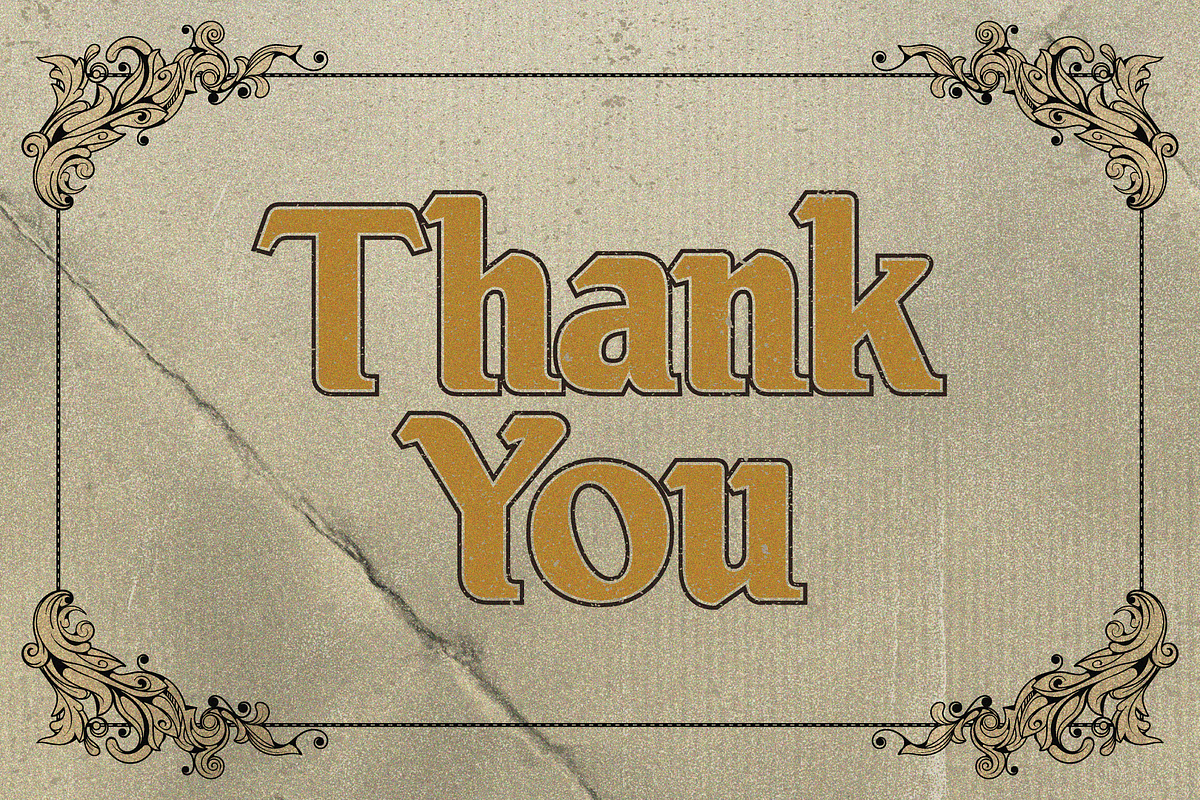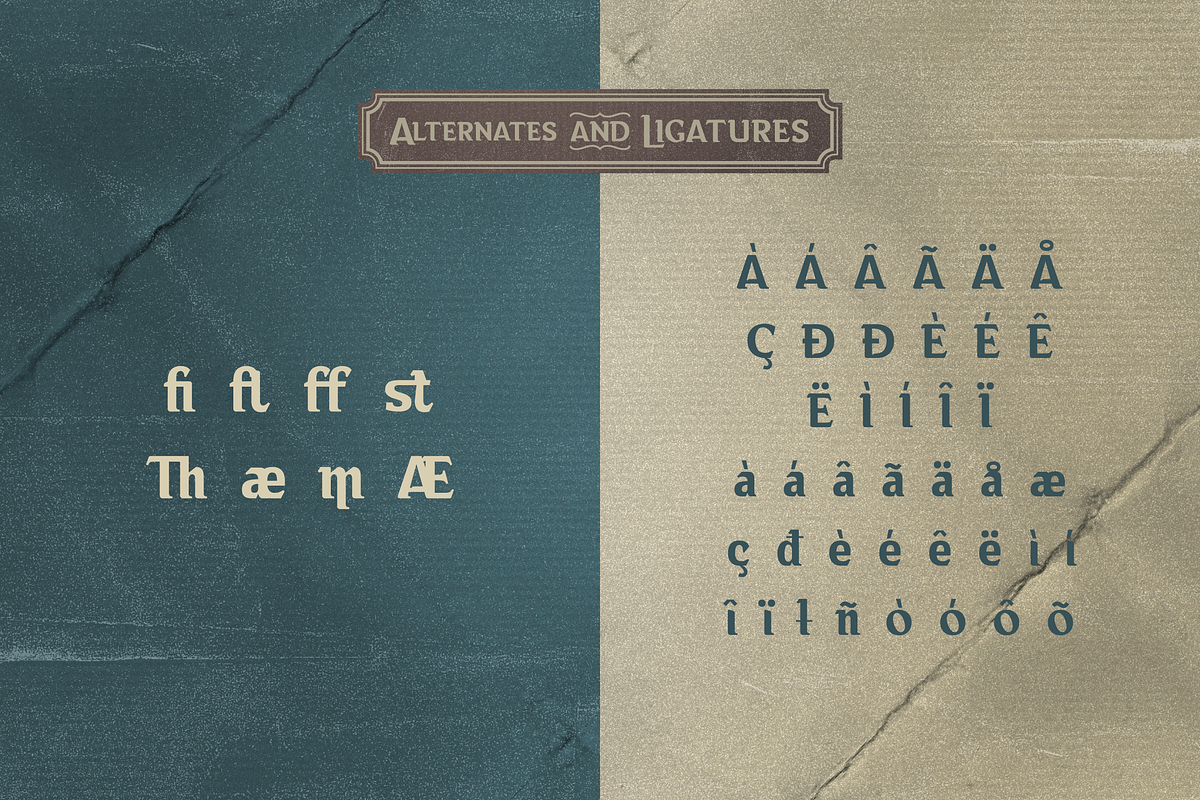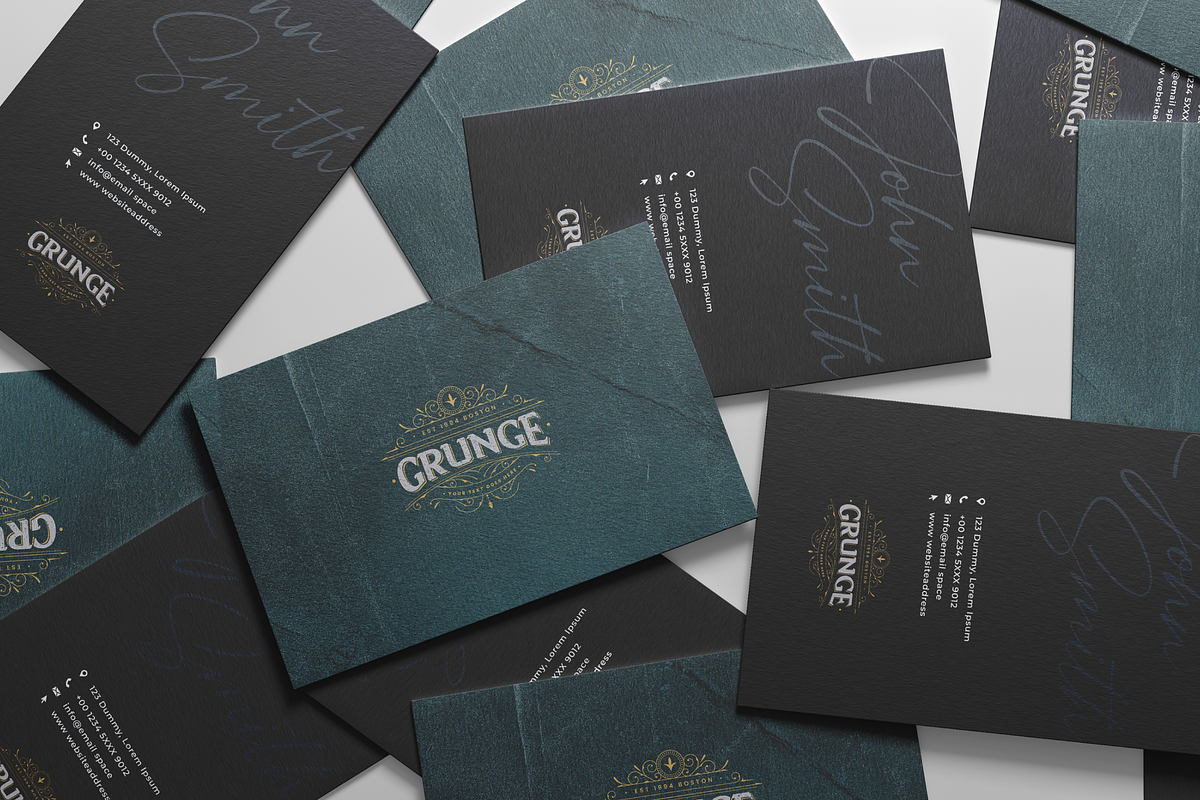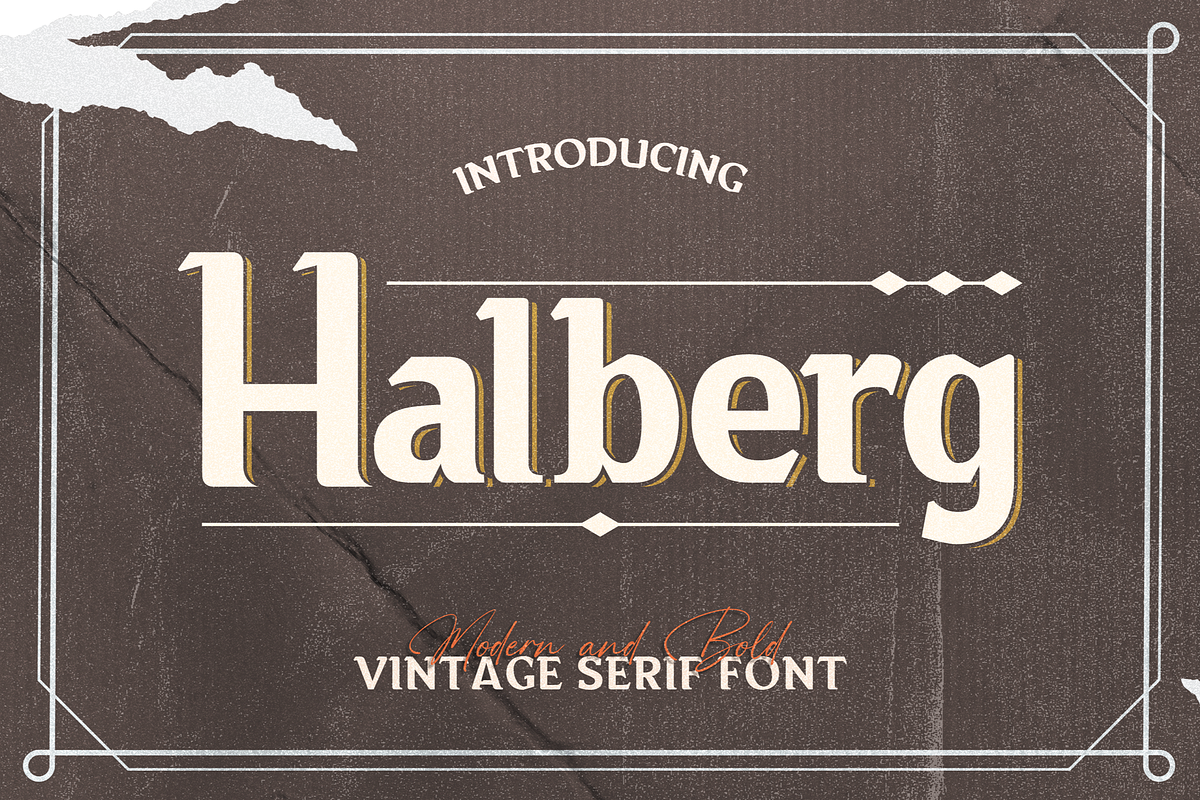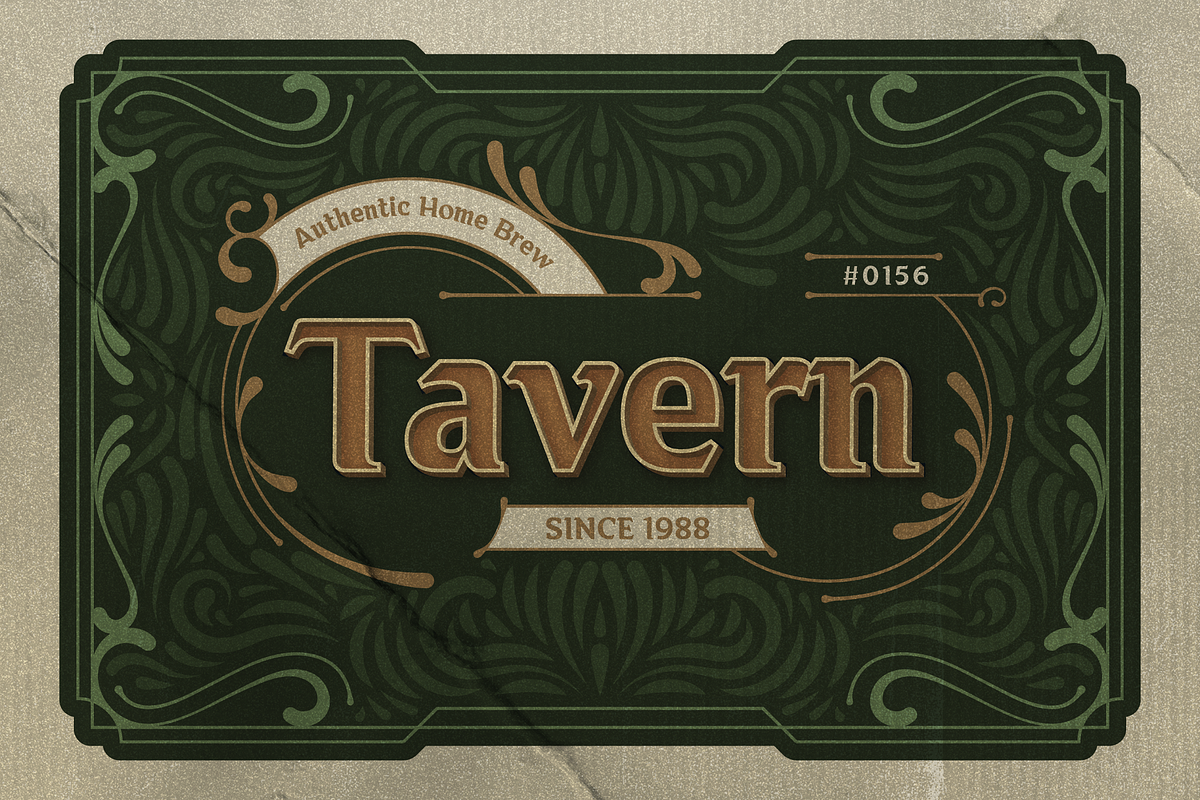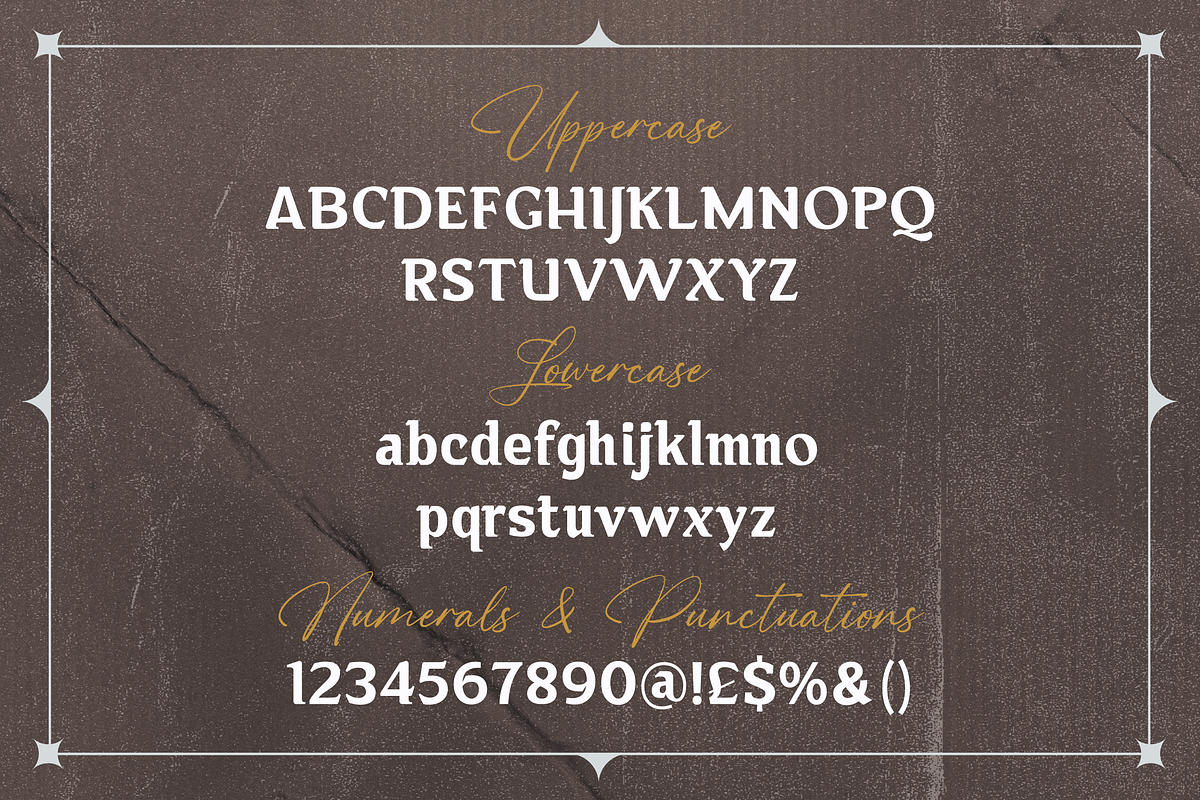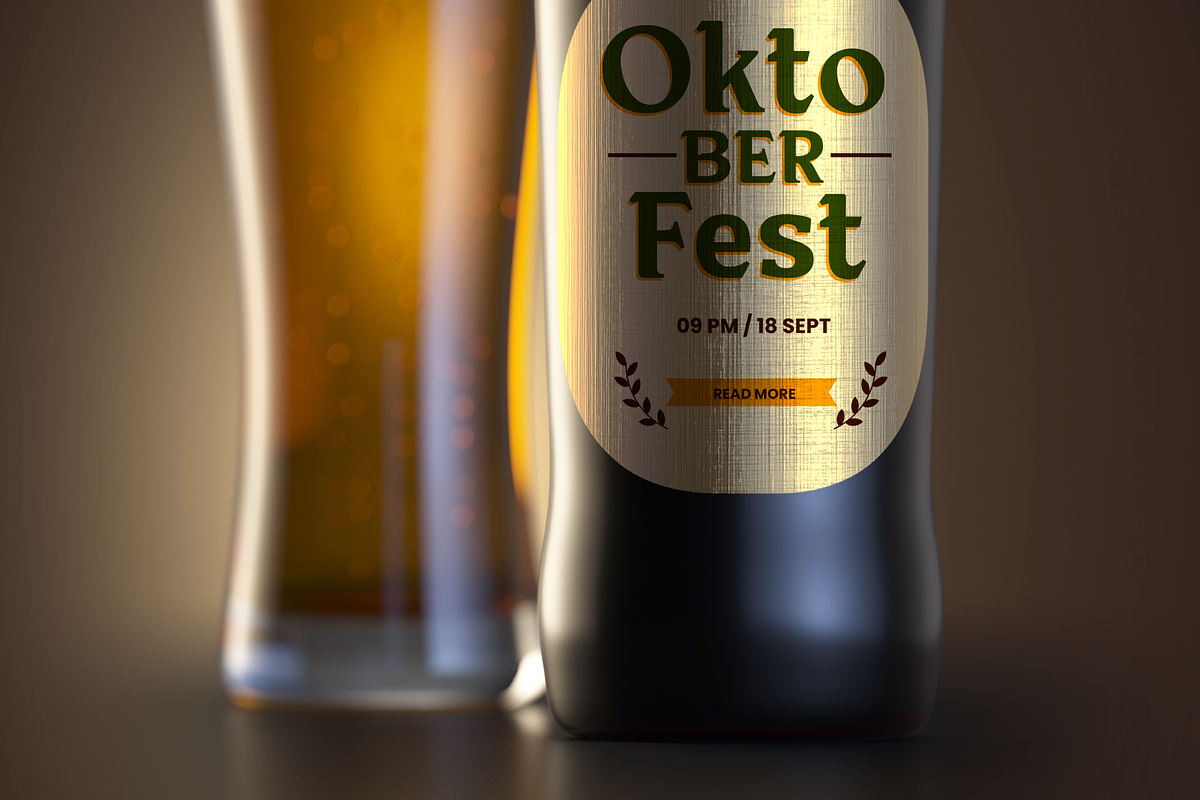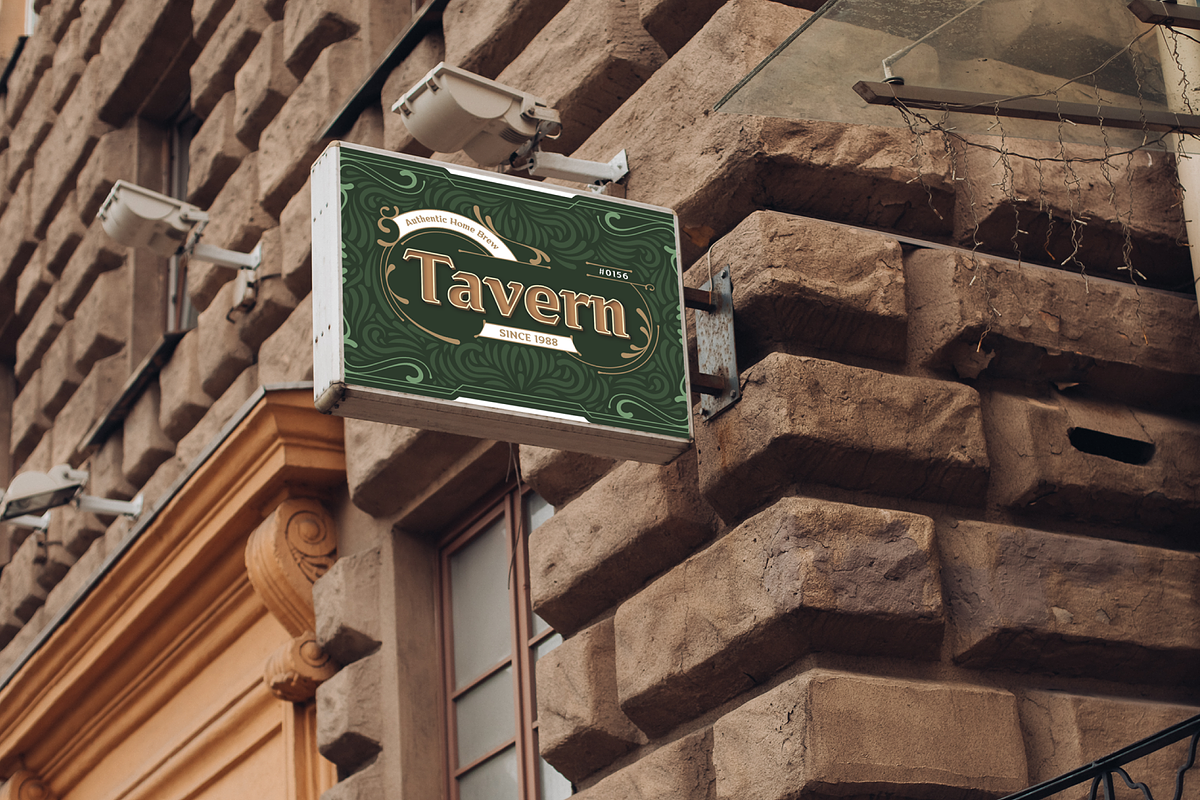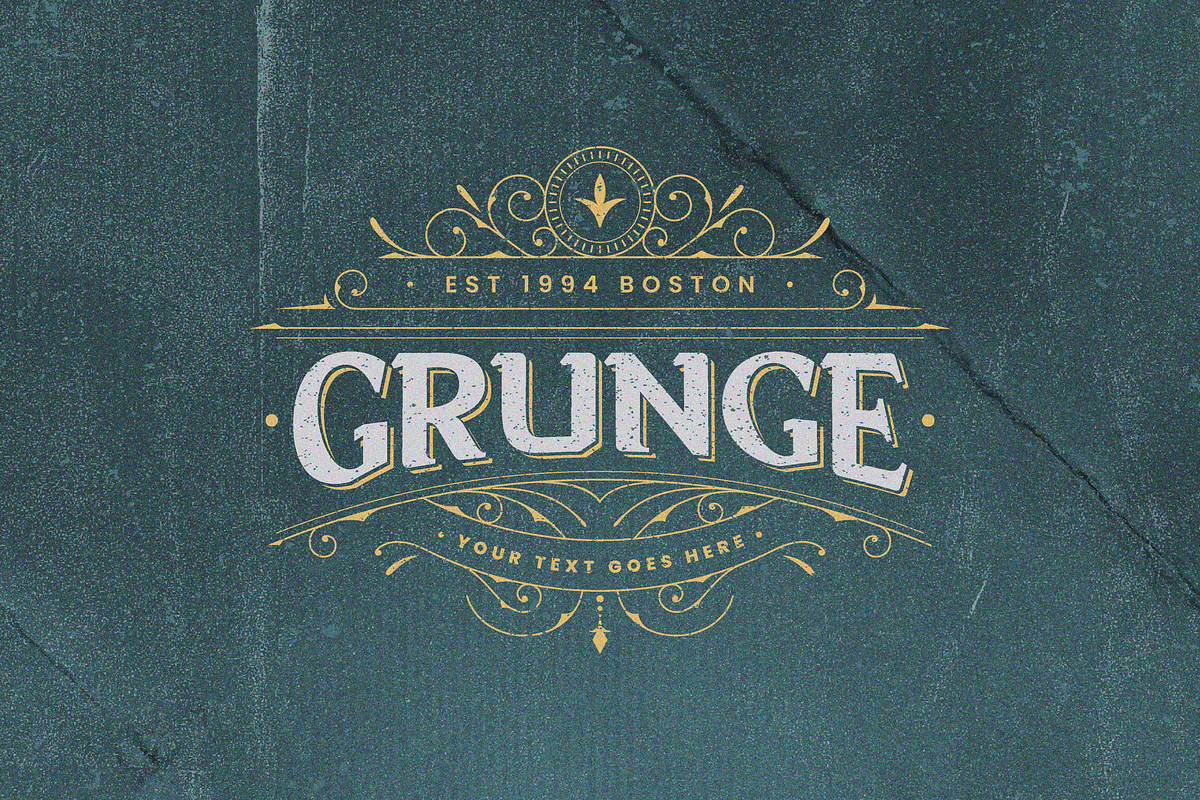
Vintage Serif Font
Wish to infuse some tradition and nostalgia into your project? Whether you’re working on a logo, promo materials, packaging, or invitations, we’ve got just the thing to elevate your design.
Introducing Halberg - a Vintage Serif Font.
From luxury brands to artisan businesses, Halberg has a timeless appeal to customers. Give it a shot and see how a great font improves the way people see you.
- Multilingual & Ligature Support
- Full sets of Punctuation and Numerals